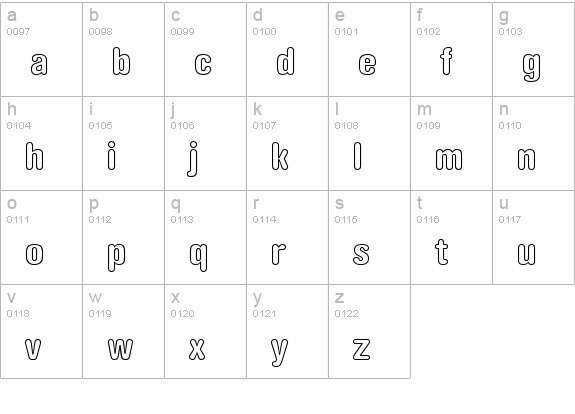
AG Book Rounded Bold Condensed Outline Font Details
AG Book Rounded Bold Condensed Outline is a comfortable, highly readable, condensed-width variant in the AG typeface family \xE2\x80\x94 well suited to long-form body text, articles, and editorial content.
AG Book Rounded Bold Condensed Outline font is a modern and eye-catching typeface that is perfect for making a statement in your design projects. Its bold and condensed form exudes a sense of strength and confidence, making it ideal for headlines, posters, and branding materials. The rounded edges add a touch of friendliness and approachability to the overall look. What's even better is that AG Book Rounded Bold Condensed Outline font is available for free download at FontsMarket.com. This means you can easily add this versatile font to your collection without any cost, saving you both time and money. Don't miss out on the opportunity to enhance your designs with this striking and versatile typeface - download it today and let your creativity shine!